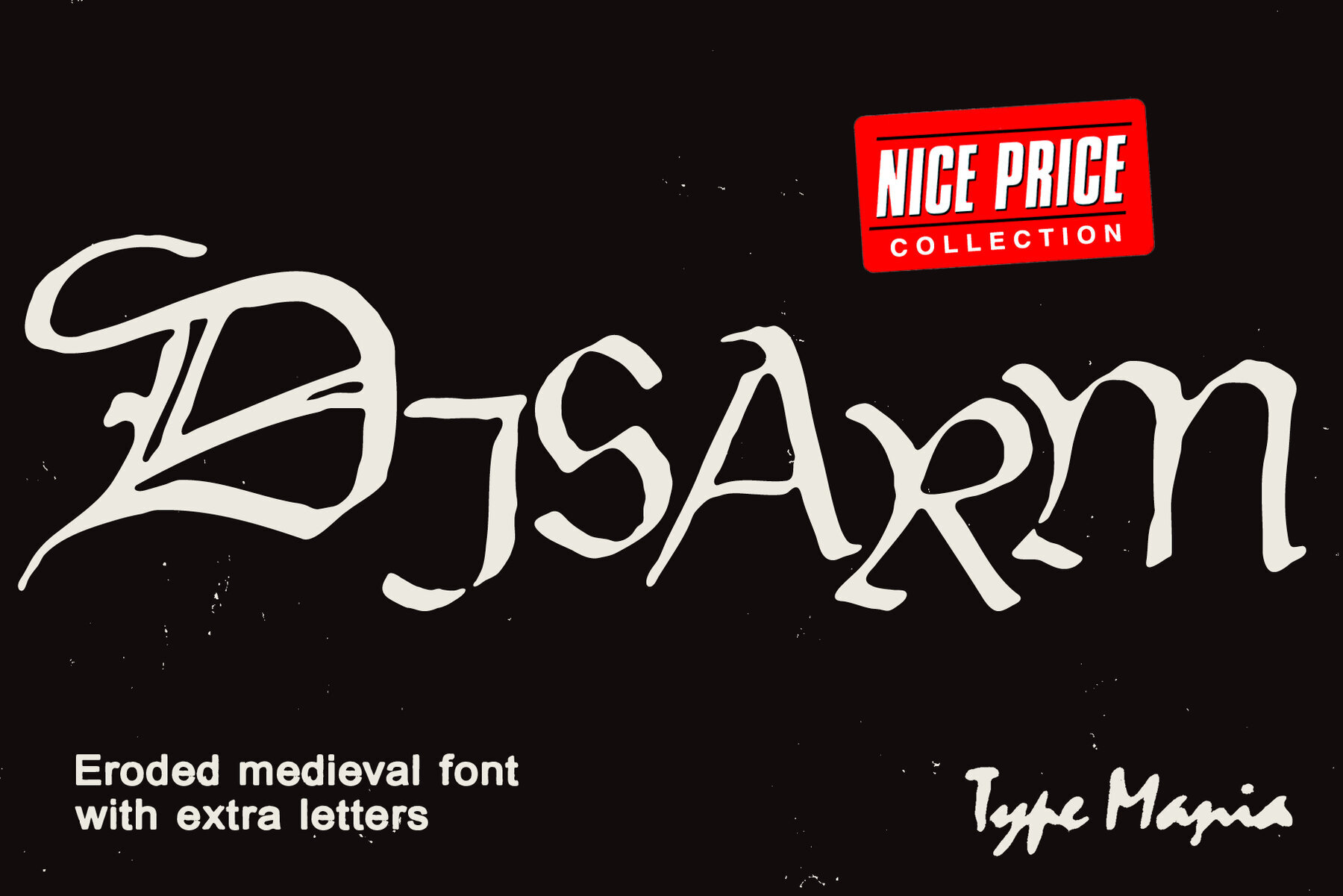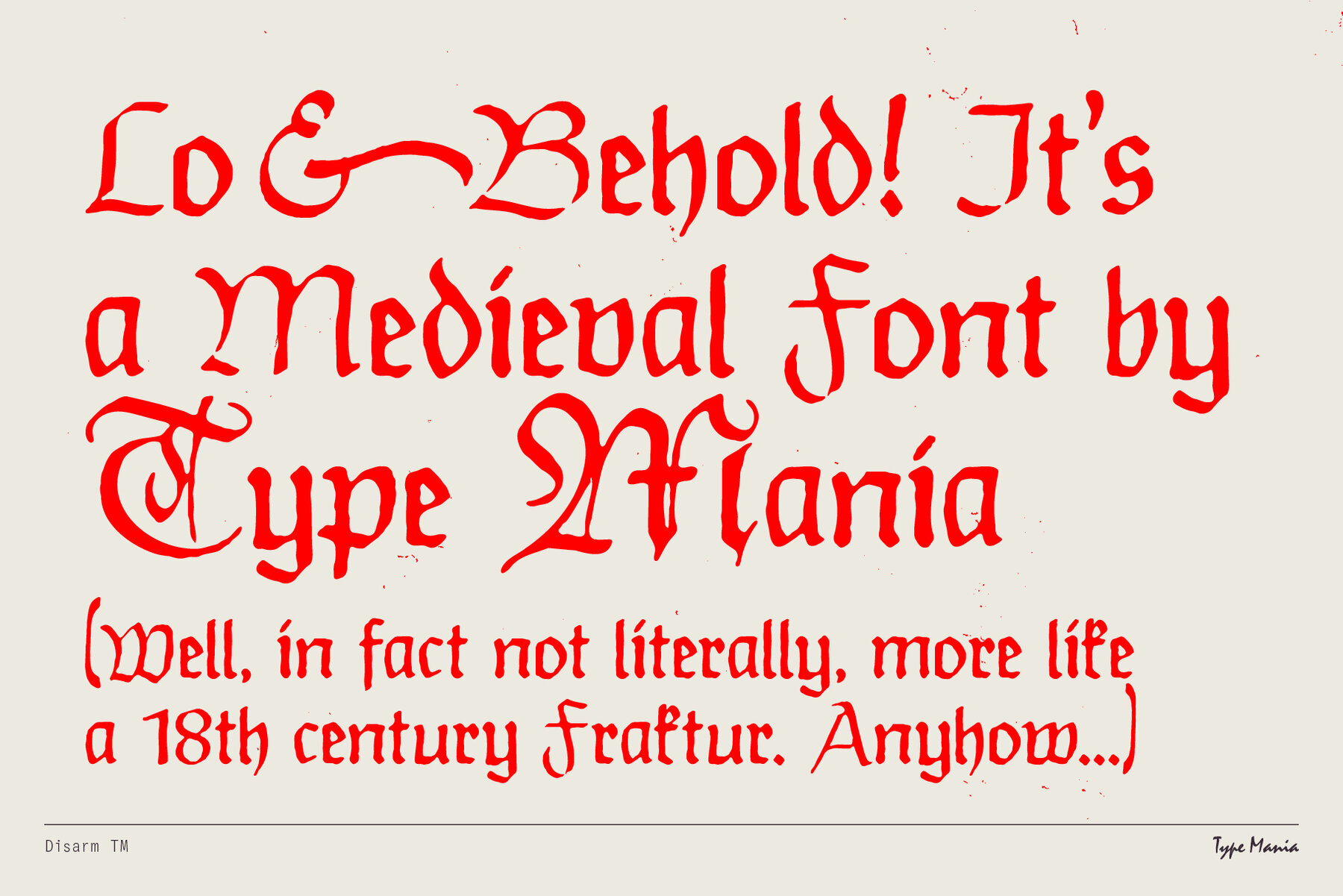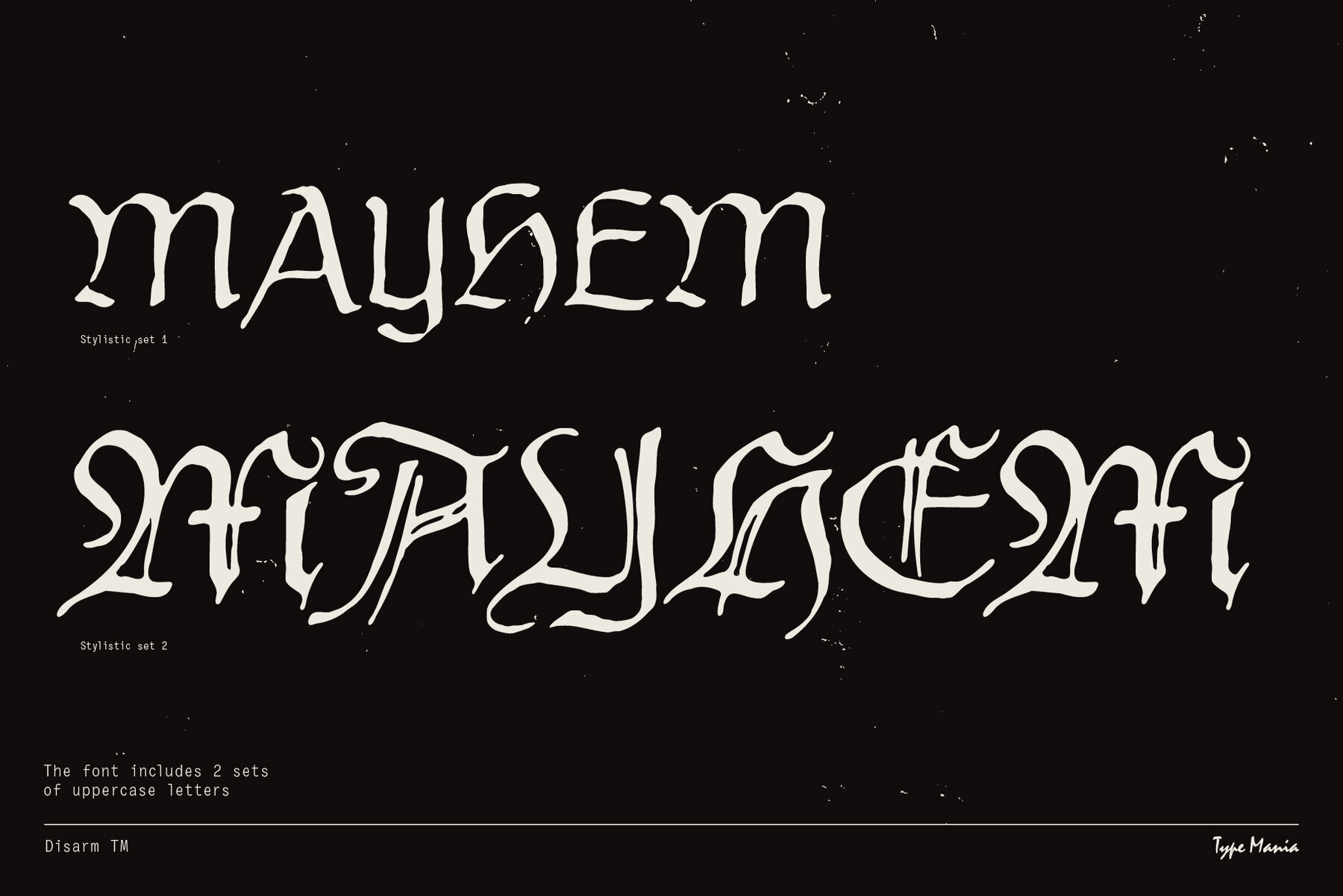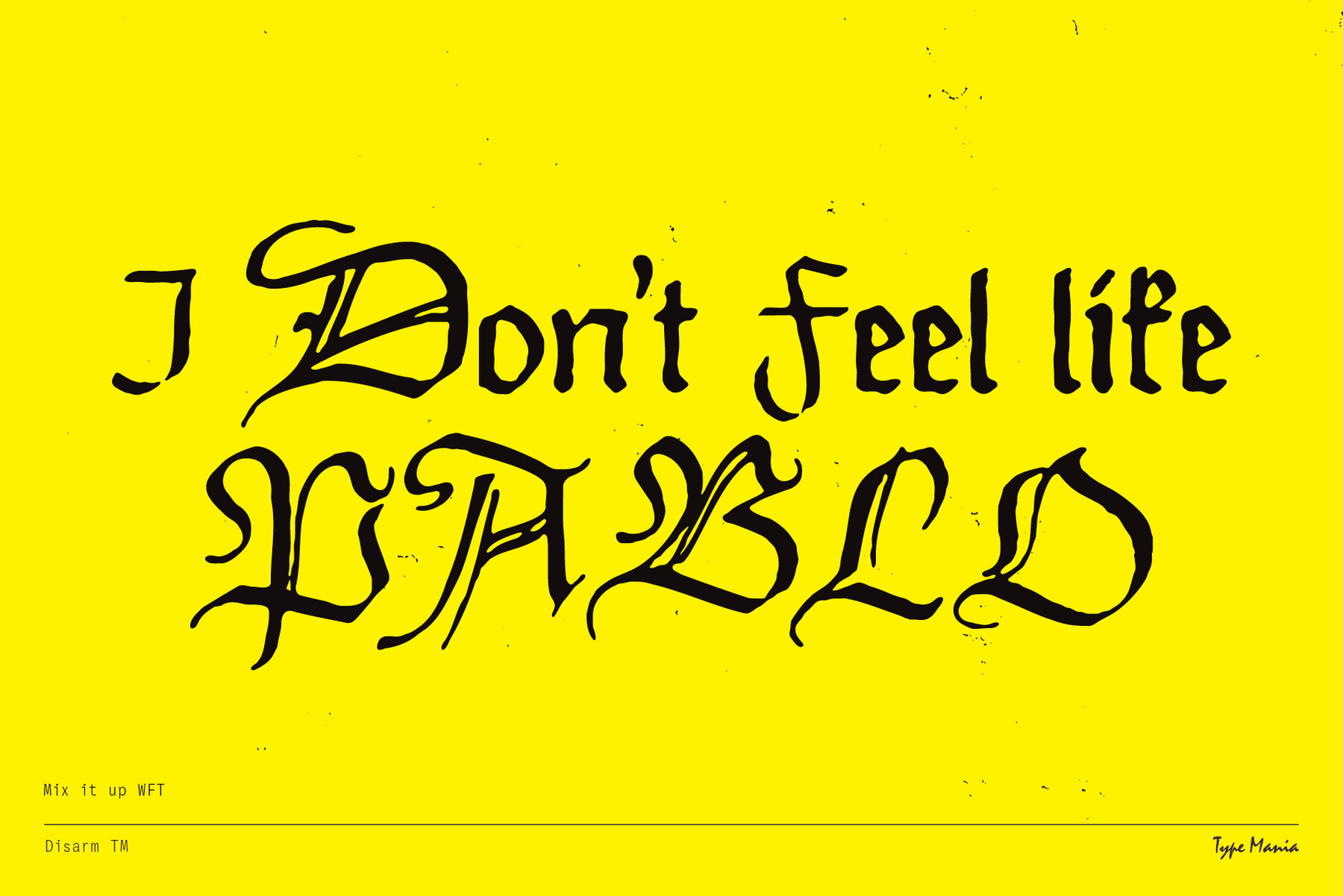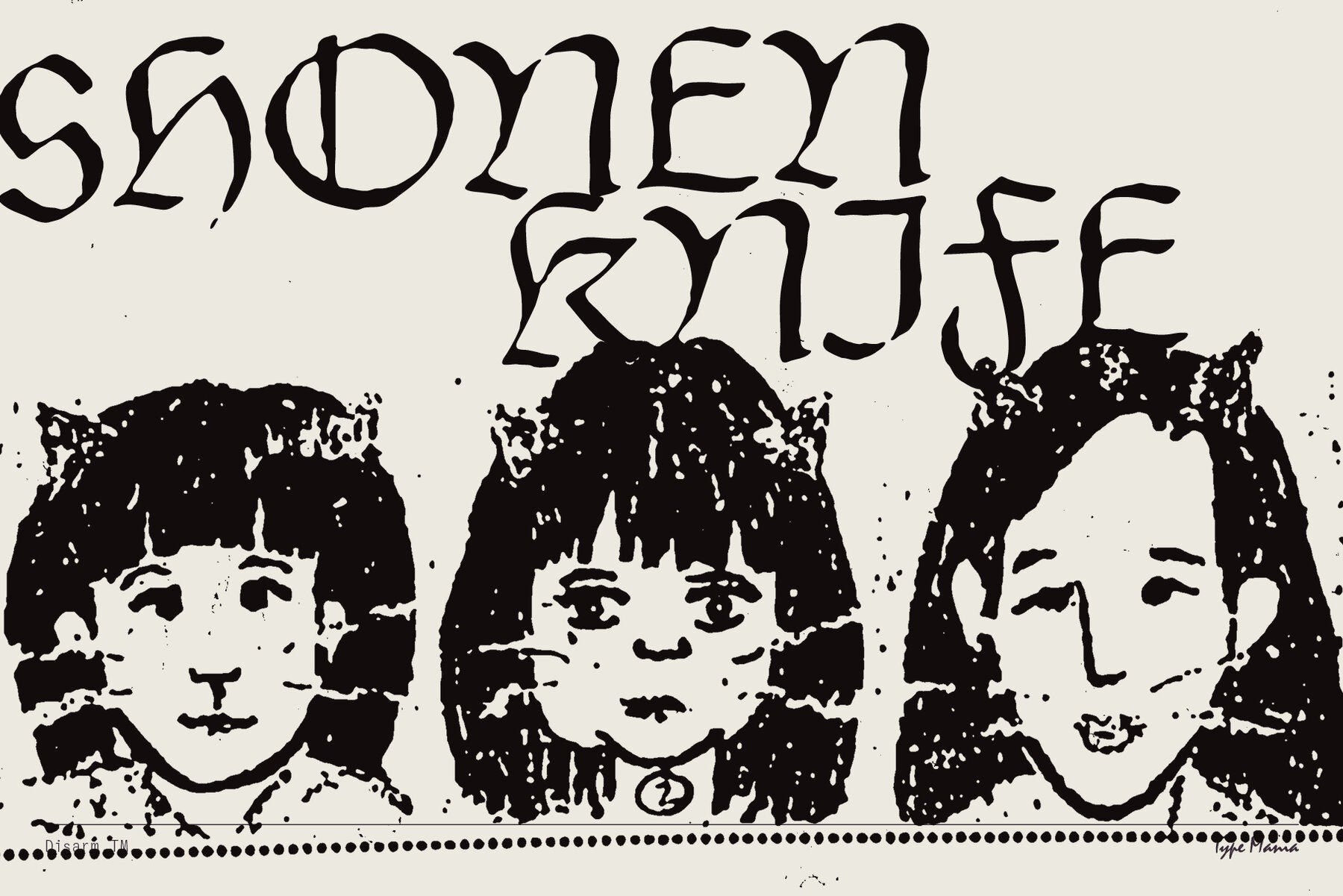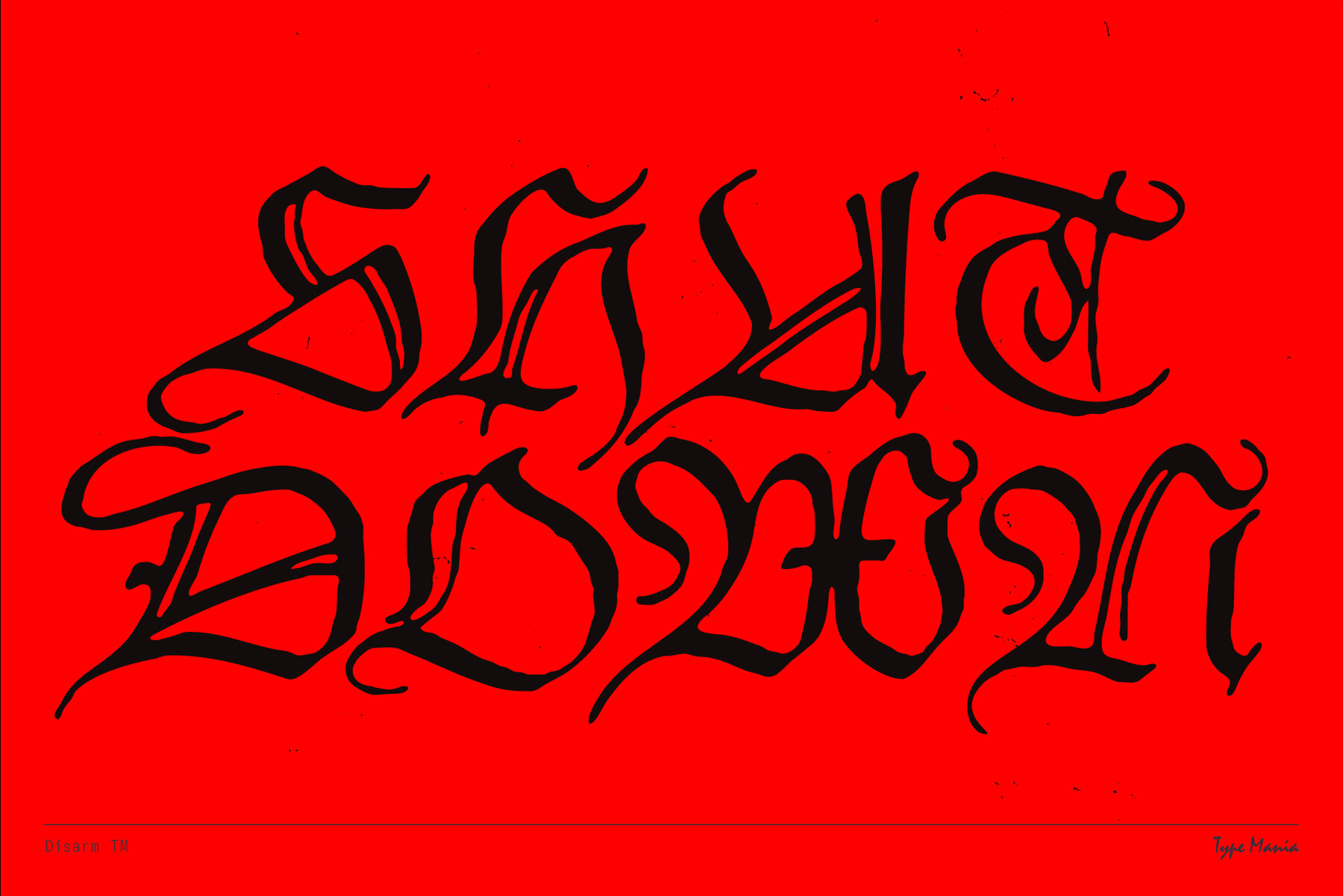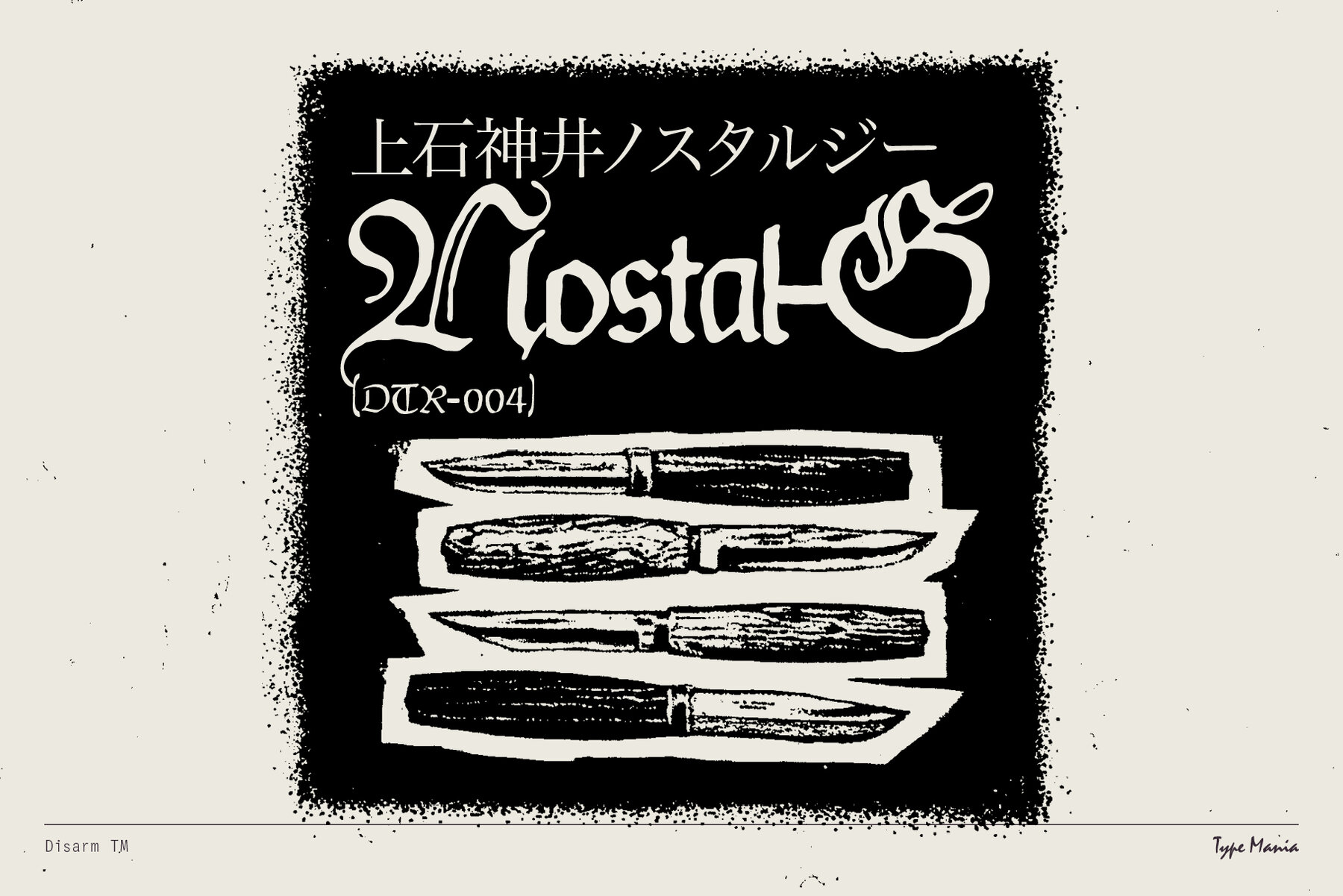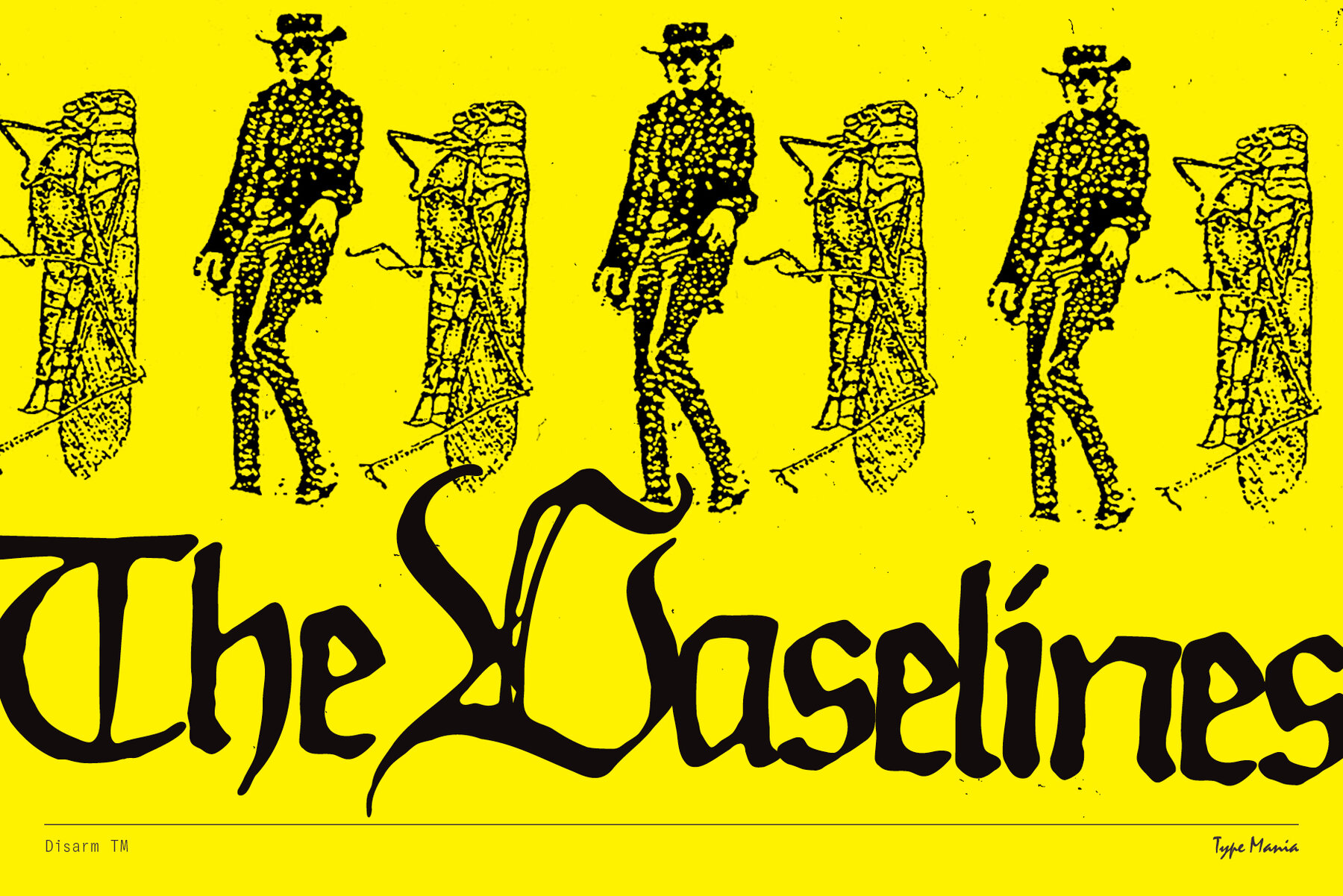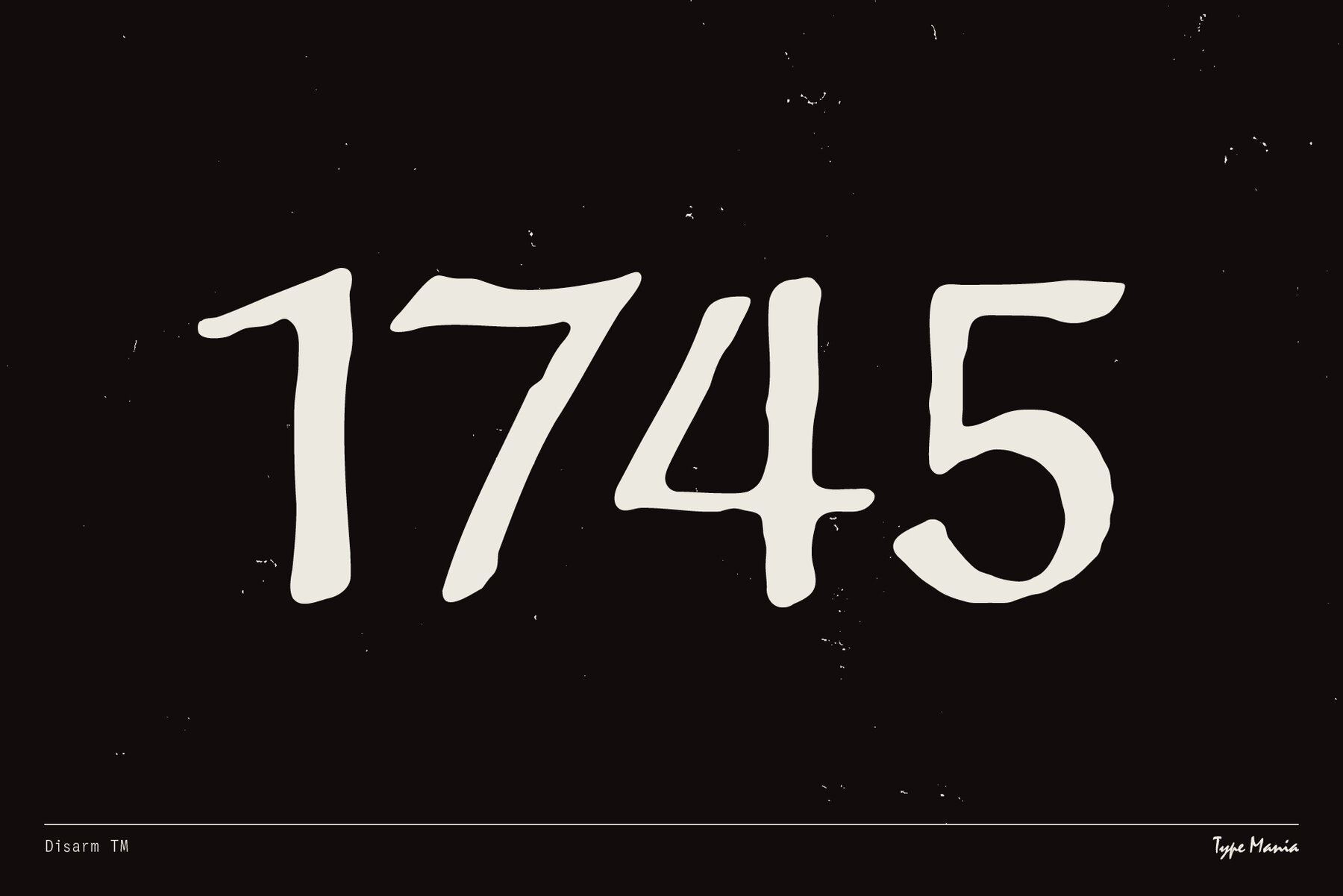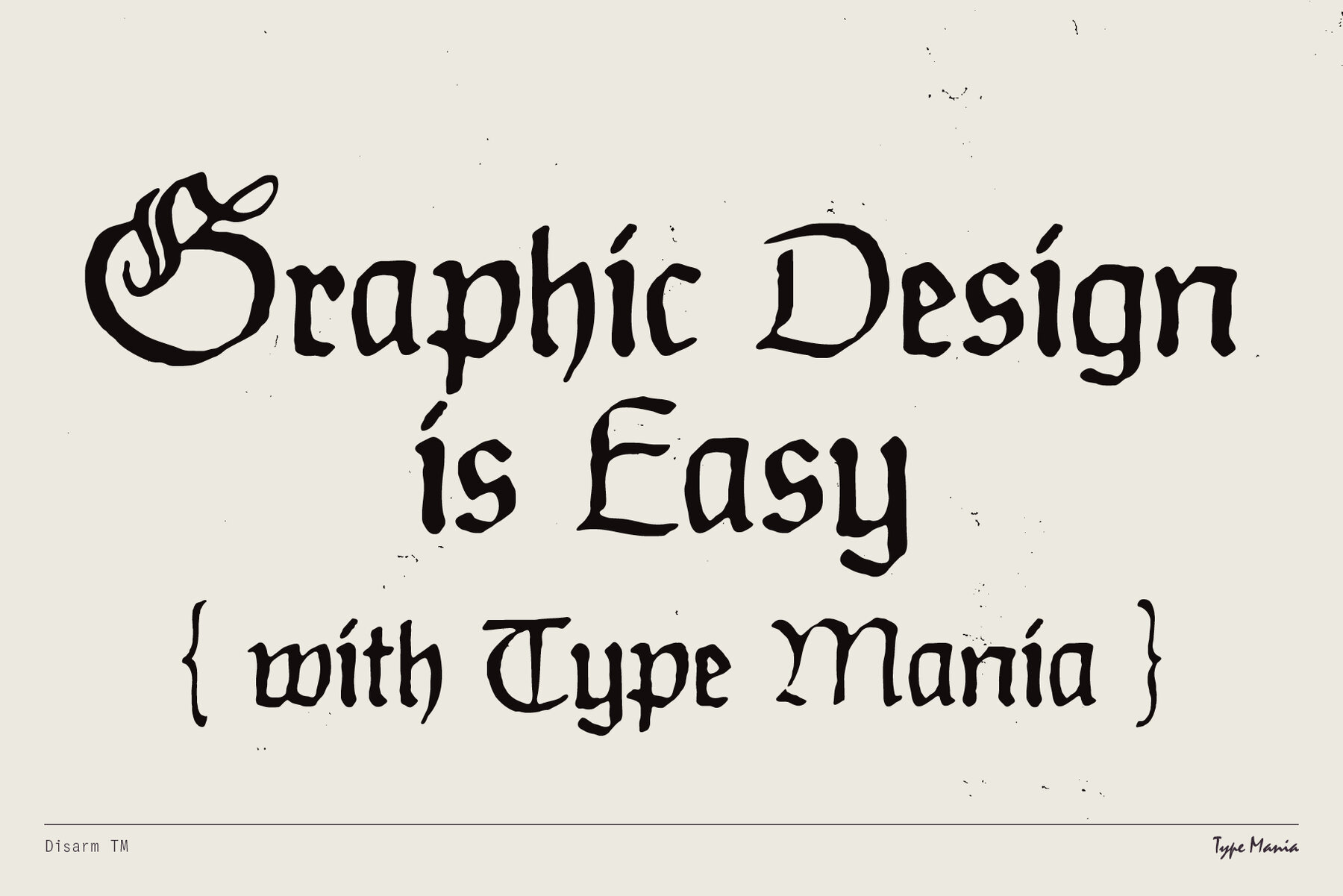
Disarm TM Font
Disarm TM Regular
Disarm TM presents a distinctive Fraktur font characterized by its irregular rhythm and distressed details, offering an eclectic appeal to modern projects. While it supports limited languages, this typeface includes alternative capital letters available through Stylistic Set 2, enhancing its versatility for creative designs. Embrace the ease of graphic design with Disarm TM, a striking option from the Type Mania collection.Disarm TM: Fraktur with a Unique Flair